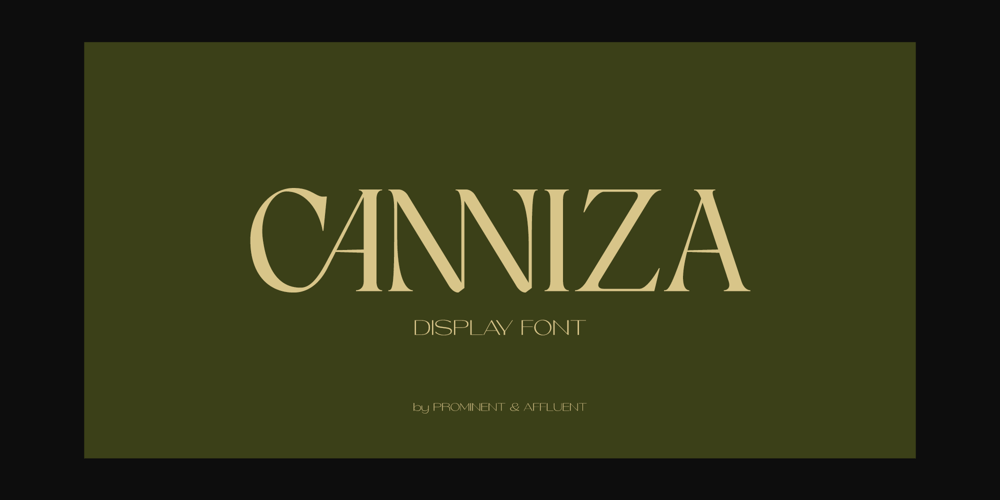
Canniza Font Family was designed by Roland Hüse and published by Prominent and Affluent. Canniza contains 8 styles and family package options. Canniza Typeface Family is a very aesthic display typeface designed for use in large sizes. It features 8 weights, from thin to bold. The typeface features a classic serif design with a modern twist.